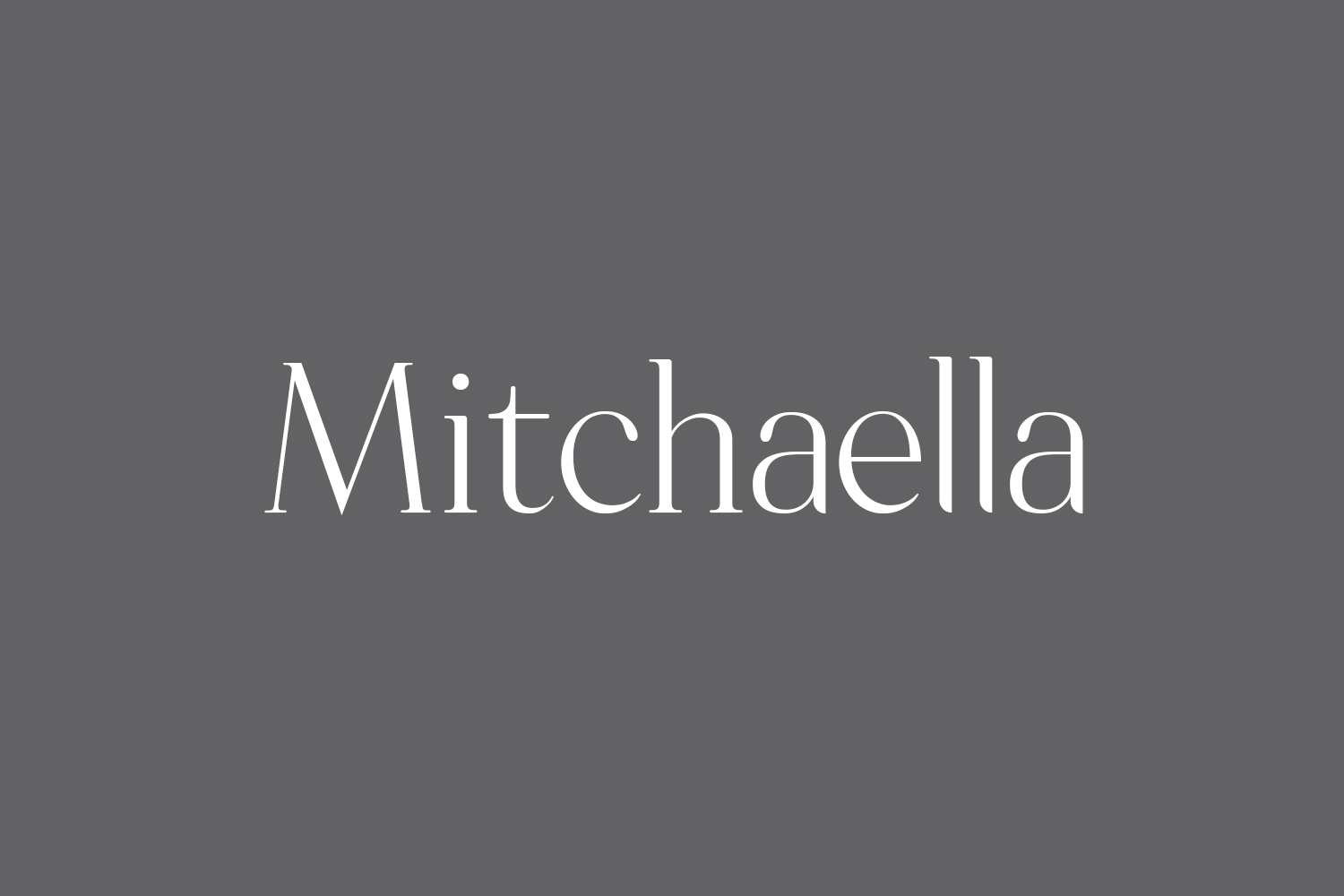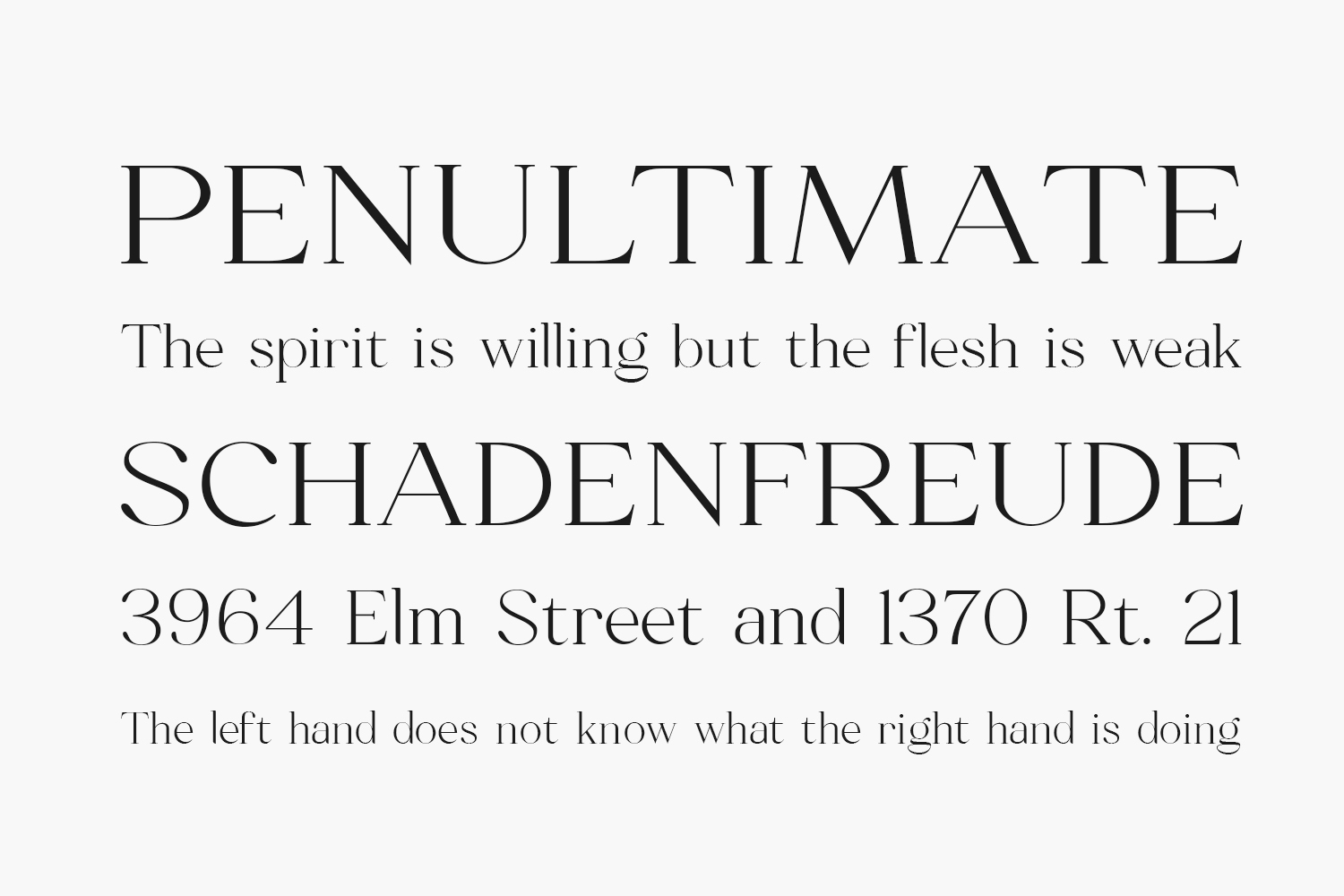
Mitchaella Free Font is an incredibly elegant and delicate serif font. Fall in love with its incredibly versatile style and use it to create spectacular designs. Download the font for free if you need it for personal use or purchase the full version for commercial use.
Designed by Typetemp Studio